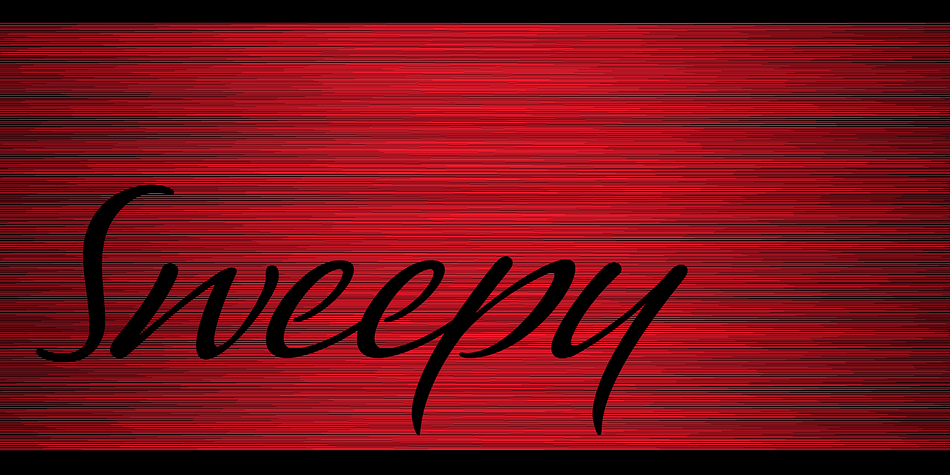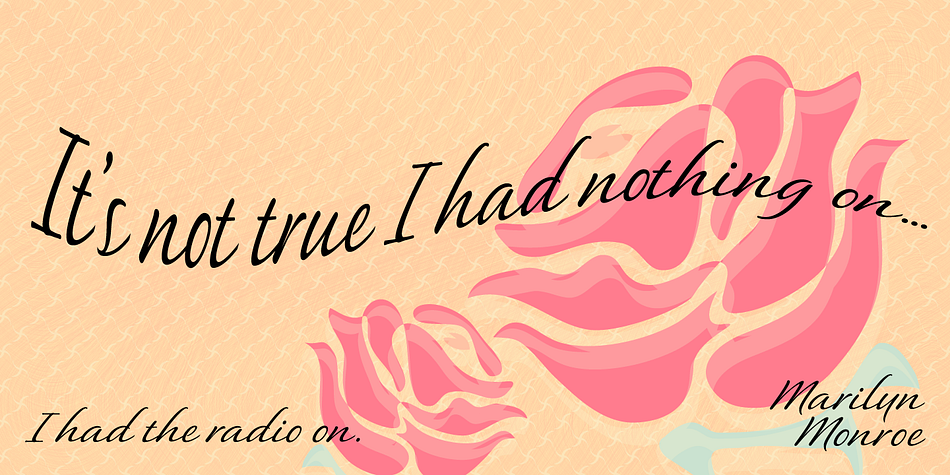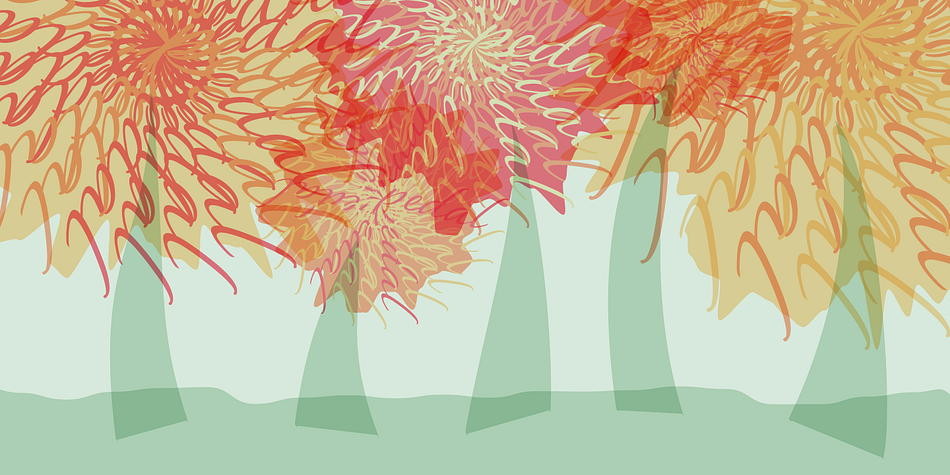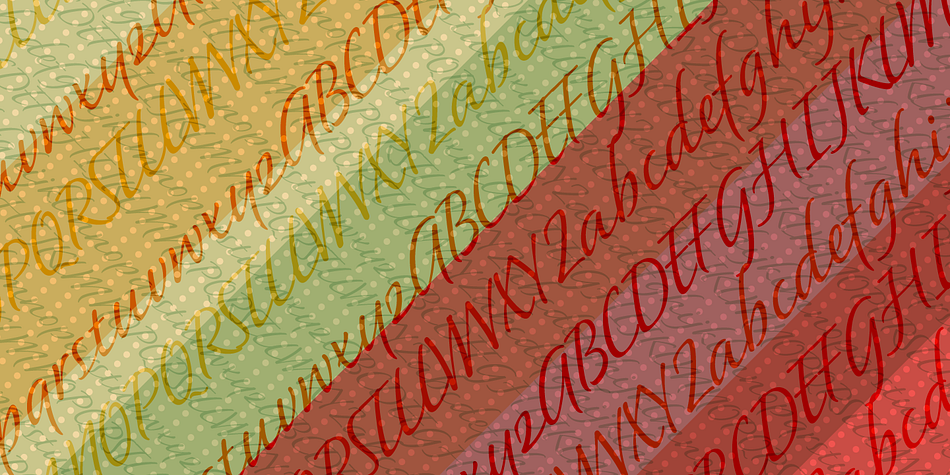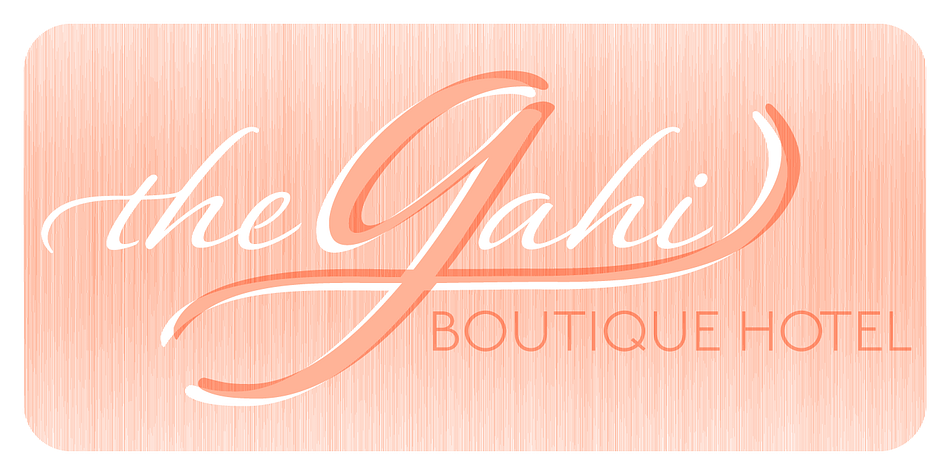
P22 Sweepy is a script font family. This typeface has two styles and was published by International House of Fonts.
Long awaited and somewhat de-weighted…a lighter, and connecting version of Pooper Black. Sweepy is a brush script that is casual and fluid. In the expanded OpenType version Sweepy is loaded with alternate characters and ligatures that offer more flexible lettering options. Great for many uses. (Sweepy Basic includes 230 glyphs, Sweepy Pro includes 462 glyphs.)